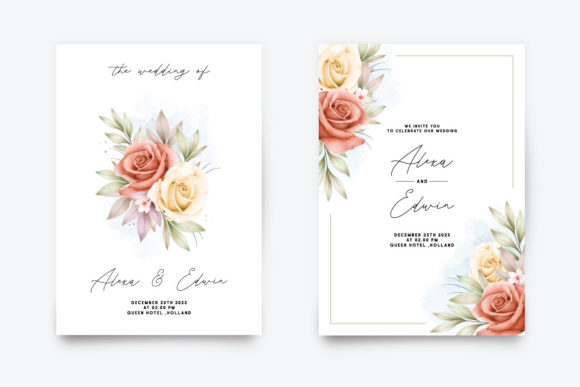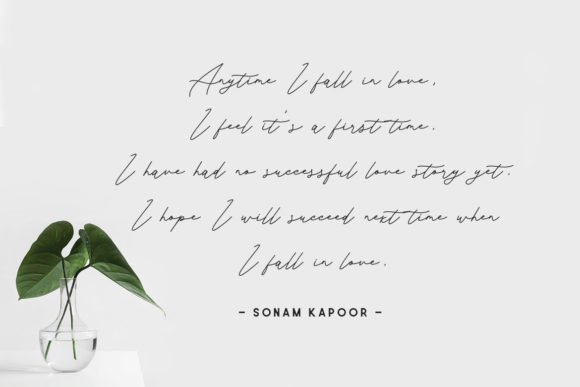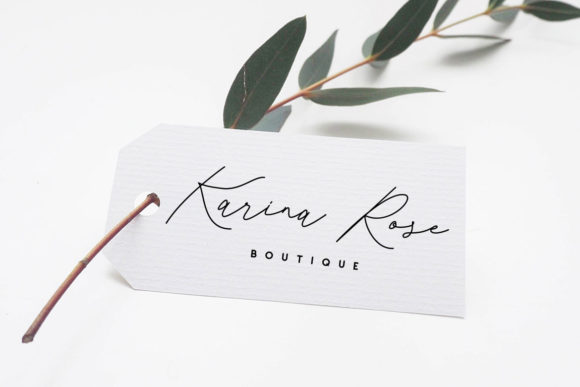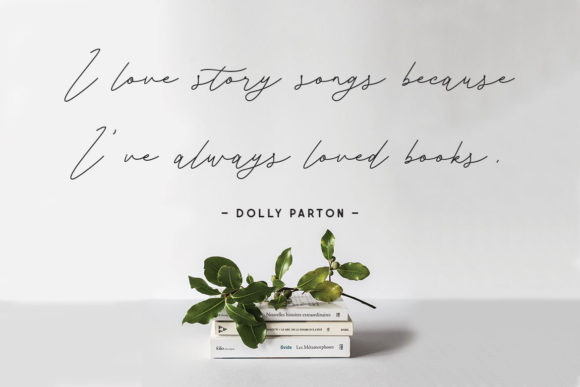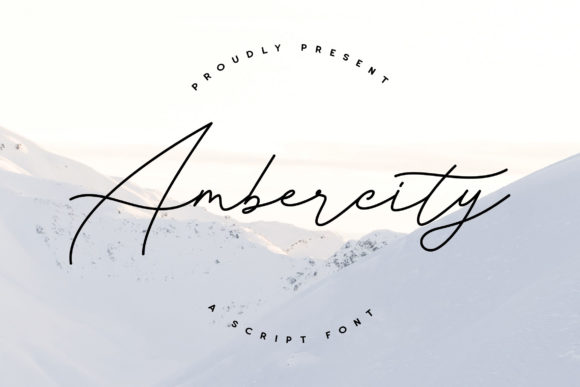
The Elegance of Ambercity Font: A Designer’s Delight
I still remember the project that led me to discover Ambercity Font. I was working on a branding campaign for a luxury boutique hotel, and I was struggling to find the perfect font that exuded elegance and sophistication. The client wanted a script font that would add a touch of warmth and personality to their brand identity. After hours of searching, I stumbled upon Ambercity Font, and it was love at first sight! 💫
An Honest Review of Ambercity Font
- ✨ Elegant and classic script with a handwritten style
- ✅ Highly versatile and suitable for various design projects, including web, print, and moving images
- 💫 Beautifully crafted letters with a high level of detail and precision
- 🎨 Supports OpenType features, glyphs, and stylistic alternates, giving designers more creative control
While Ambercity Font is an excellent choice for many design projects, it’s not without its limitations. Here are a few things to keep in mind:
- 🤔 May not be the best choice for very small font sizes, as some details may get lost
- ⚠️ Limited availability of certain characters, such as ligatures and diacritical marks
The Backstory of Ambercity Font
Ambercity Font was designed by a team of experienced typographers who wanted to create a font that would exude elegance and sophistication. The font was inspired by classic scripts from the early 20th century, with a modern twist. The designers aimed to create a font that would be versatile and suitable for various design projects, from luxury branding to wedding invitations.
| Font Name | Ambercity Font |
| Author | Runsell Graphic |
Q: What is the best way to use Ambercity Font?
A: Ambercity Font is best used for projects that require an elegant and sophisticated look, such as luxury branding, wedding invitations, and formal documents.
Q: Is Ambercity Font suitable for body text?
A: While Ambercity Font is beautiful and elegant, it’s not the best choice for body text. It’s better suited for headlines, titles, and short paragraphs.